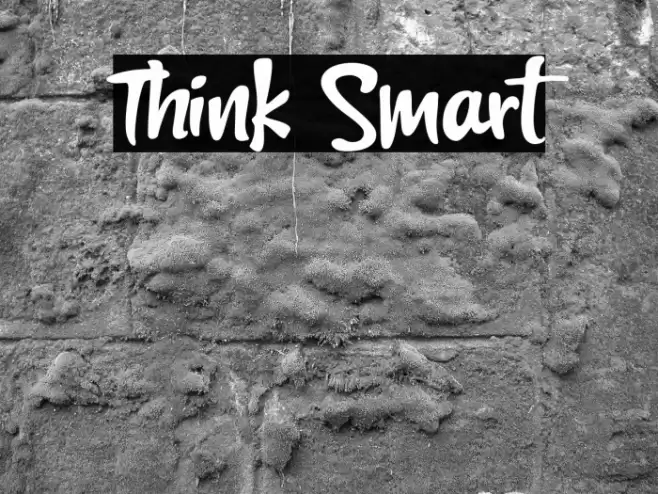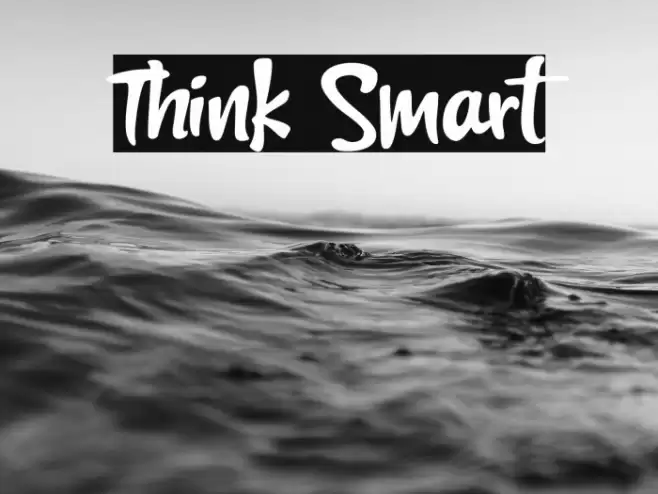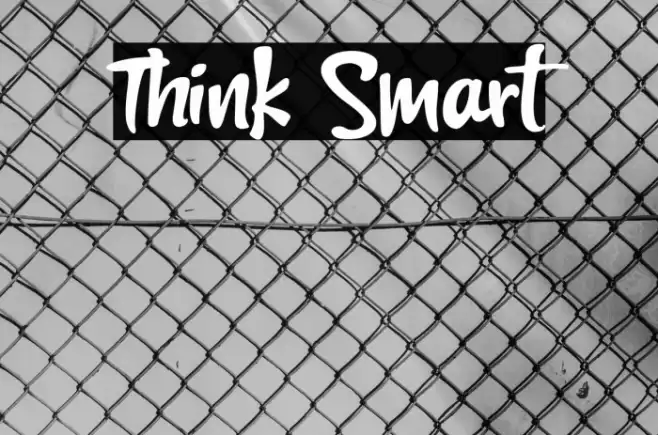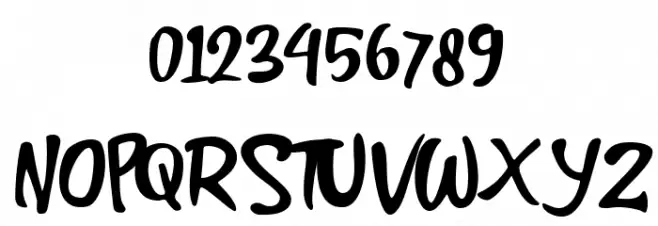
Think Smart Font
Think Smart Description
This font features a playful and energetic script style, characterized by its bold and flowing strokes. The letters are slightly slanted, giving a sense of movement and dynamism. The uppercase letters are distinct with exaggerated curves, while the lowercase letters maintain a consistent flow, enhancing readability. The numbers are equally expressive, matching the overall lively aesthetic. This font is perfect for projects that require a touch of creativity and flair, such as branding, posters, and invitations.
A bold, playful script font with flowing strokes and dynamic curves from Comic fonts.
- Proposed Projects: Ideal for branding, posters, invitations, and creative projects.
- Use Case: Logos, Headlines, Posters